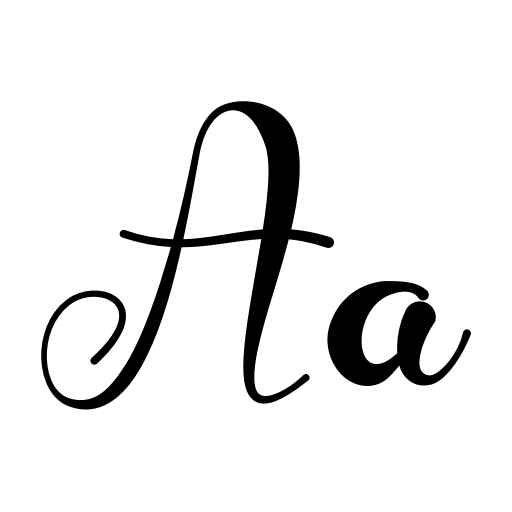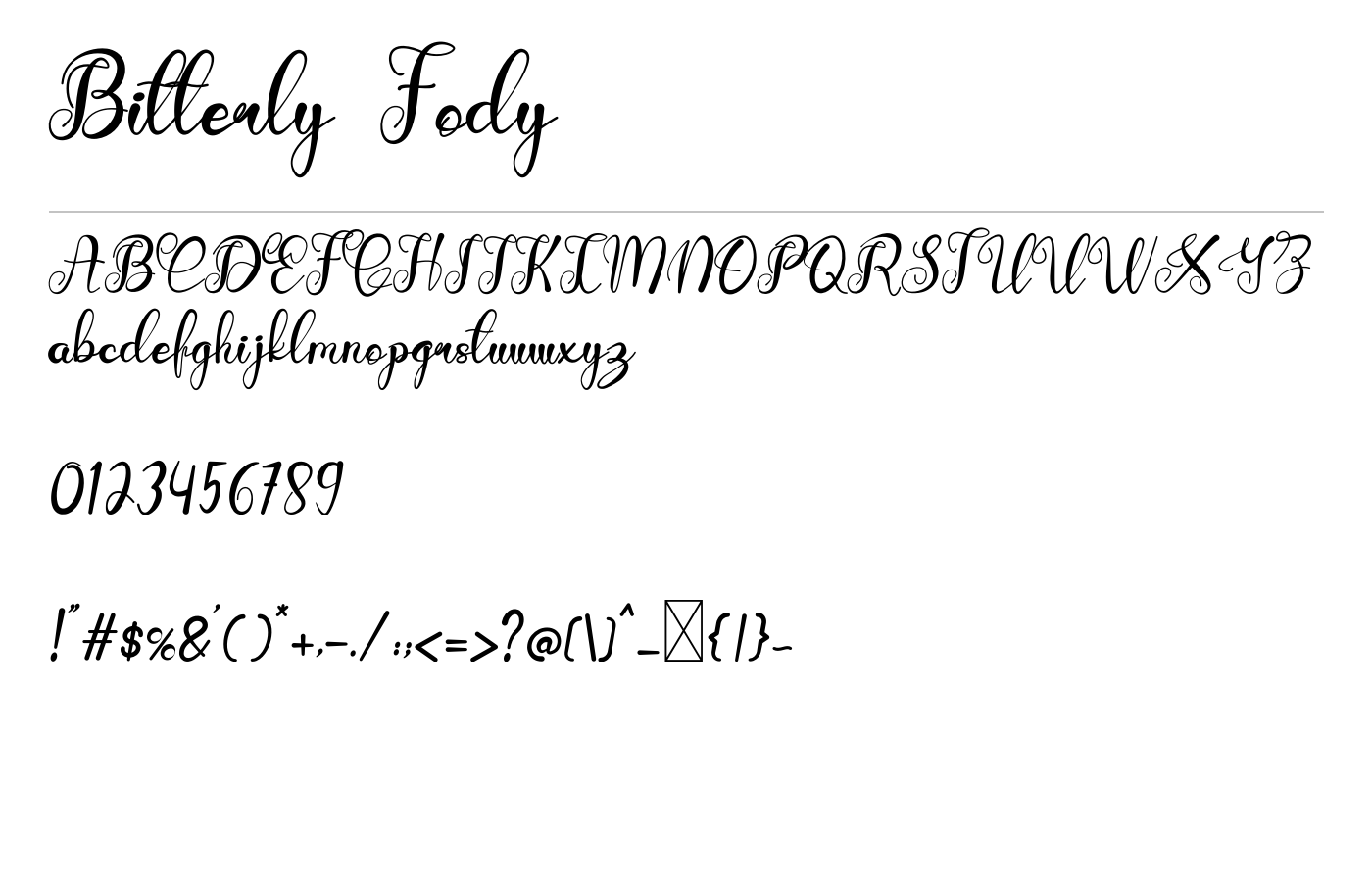
Bitterly Fody is an elegant script font characterized by its graceful, flowing letterforms with curly, ornamental strokes that give it a sophisticated yet lively personality. Its light weight and delicate swashes make it ideal for invitations, branding, and creative projects that seek a feminine, stylish, and artistic touch. This font works best in display settings where its decorative style can shine, adding charm and a handcrafted feel to logos, headlines, and packaging designs.
Bitterly Fody Font
About Bitterly Fody Font